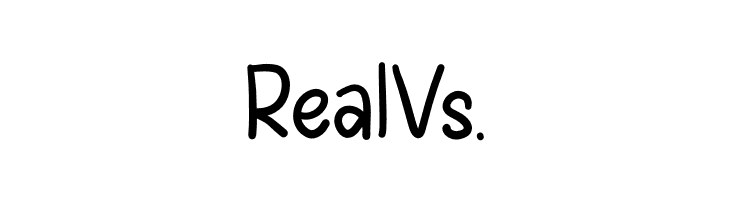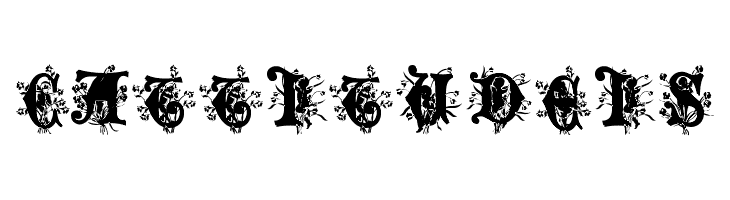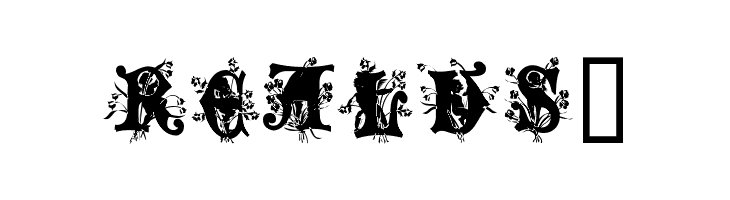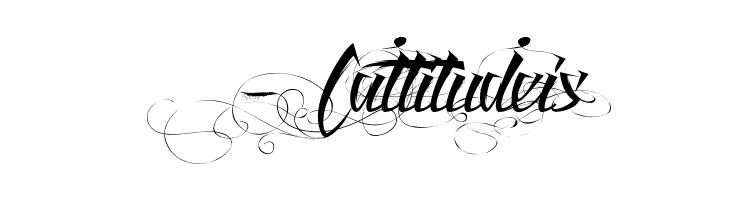
• Angel Love
A romantic and elegant script font with flowing, cursive letters.
• Angel Lust
• Angel Maleficent
An elegant and whimsical script font with ornate curls and loops.
• Angel Normal
• Angel of Blood
An ornate and decorative script font with elaborate swirls and flourishes.
• Angel of Blood Light
A dramatic, calligraphic font with sharp, angular strokes and a gothic flair.
• Angel rhapsody Regular
A bold, Gothic-style font with intricate details and a dramatic flair.
• Angel rhapsody Regular
A bold blackletter font with intricate, angular designs and decorative elements.
• Angel Rise Free Regular
A flowing, cursive font with an elegant, handwritten style.
• Angel Signature
A cursive, handwritten-style font with elegant, flowing characters.
• Angel Signature
A sophisticated, elegant handwritten script with flowing, interconnected letters.
• Angel Signature Italic
A graceful and fluid script font with elegant, flowing lines.
• Angel Signature Italic
An elegant, cursive script font with a handwritten signature style.
An elegant and ornate script font with flowing, interconnected letterforms.
• ANGEL TEARS trial
An elegant, high-contrast script font with ornate swashes and flowing letterforms.
• ANGEL TEARS trial
• Angel Valley Demo
A fluid and elegant script font with interconnected, delicate strokes.
• Angel Wedding
An elegant script font with flowing, cursive letterforms and decorative swashes.